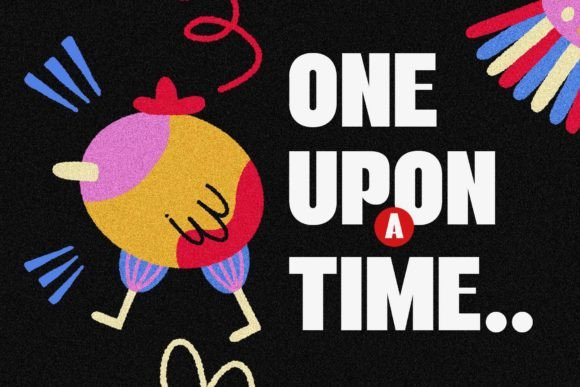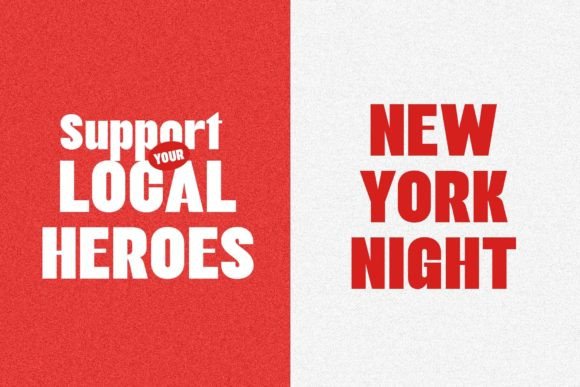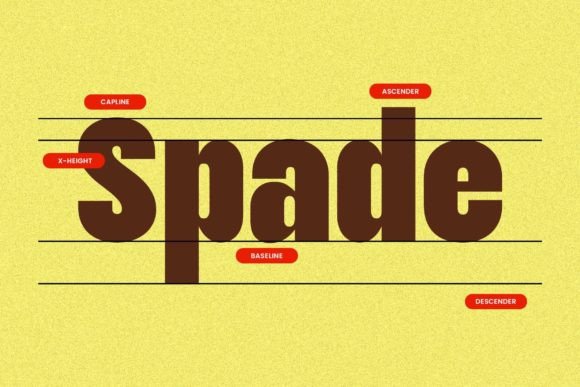
Introduction to Highfat Font
Have you ever stared at a blank design canvas, waiting for the perfect font to bring your creative project to life? You know, that ‘aha’ moment when everything clicks into place? For designers, finding the right font can be a game-changer. It’s the difference between a mere concept and a stunning visual masterpiece.
Enter the Highfat Font, a bold and eye-catching condensed font that’s about to become your new go-to design resource. This unique font combines the best of retro and modern styles, offering a thicker, more solid appearance that’s perfect for grabbing attention.
Key Features of Highfat Font
- Includes a wide range of characters, including uppercase and lowercase letters, numbers, and special symbols.
- Can be used for a variety of creative projects, including logos, typography, and graphics, due to its unique, highfat design aesthetic.
Honest Review: Highfat Font
I recently had the chance to work with the Highfat Font, and I must say it’s been a solid addition to my design resource arsenal. The first thing that caught my eye was its high quality and unique aesthetic, making it perfect for creative projects that require a bold touch.
- Its transparent background makes it easy to use on various backgrounds, giving designers more flexibility.
- The font is incredibly versatile and can be used in a wide range of design contexts, from logos to headings.
- ⚠️ The font may not be suitable for smaller text sizes, as it can become difficult to read.
- ⚠️ Some users may find the font’s unique style to be overwhelming or too bold for certain design projects.
Overall, I’m impressed with the Highfat Font and would definitely recommend it to designers looking for a high-quality, bold font for their creative projects. Just be mindful of its limitations, and you’ll be all set for a successful design experience.
The Highfat Font is a unique and stylish design resource that can elevate your creative project to the next level. With its bold and playful characteristics, it’s perfect for adding a touch of personality to your designs.
Tips for Getting the Most Out of Highfat Font
Experiment with different font sizes and colors to create a visually appealing design. Use the Highfat Font in combination with other design elements to add depth and interest to your project.
The Highfat Font is perfect for creating eye-catching headings, titles, and labels. It’s also great for adding a touch of personality to social media graphics, blog posts, and marketing materials.
Is Highfat Font a high-quality font?
Yes, the Highfat Font is a high-quality font, designed to meet the needs of designers working on creative projects. The font has been carefully crafted to ensure that it is clear, readable, and visually appealing, making it a valuable resource for designers.